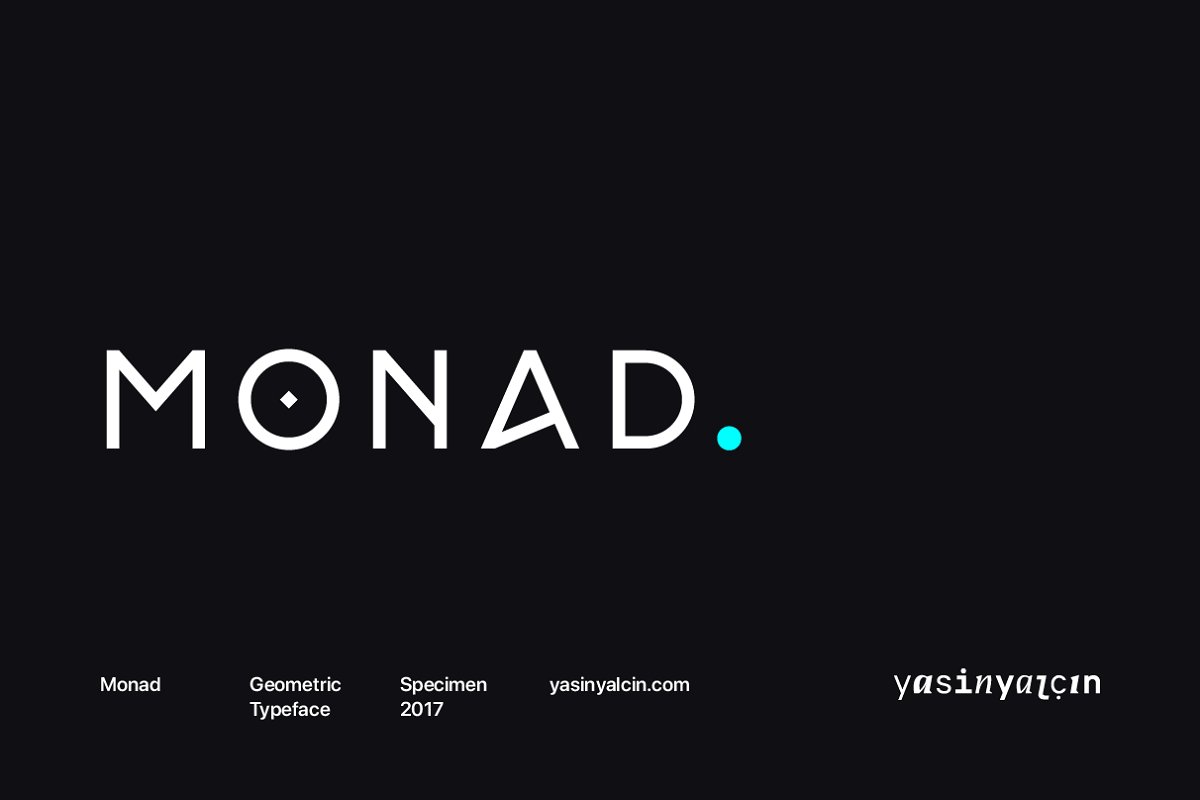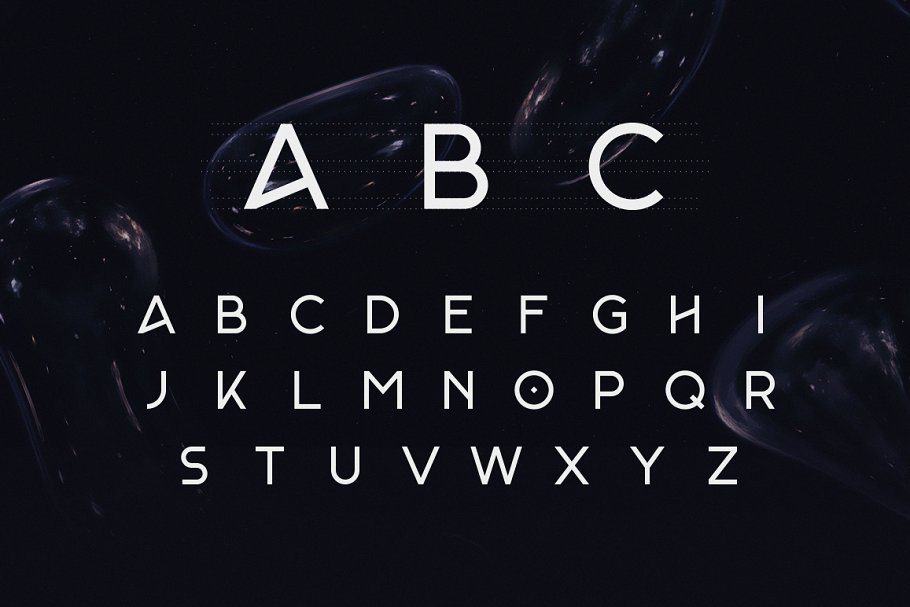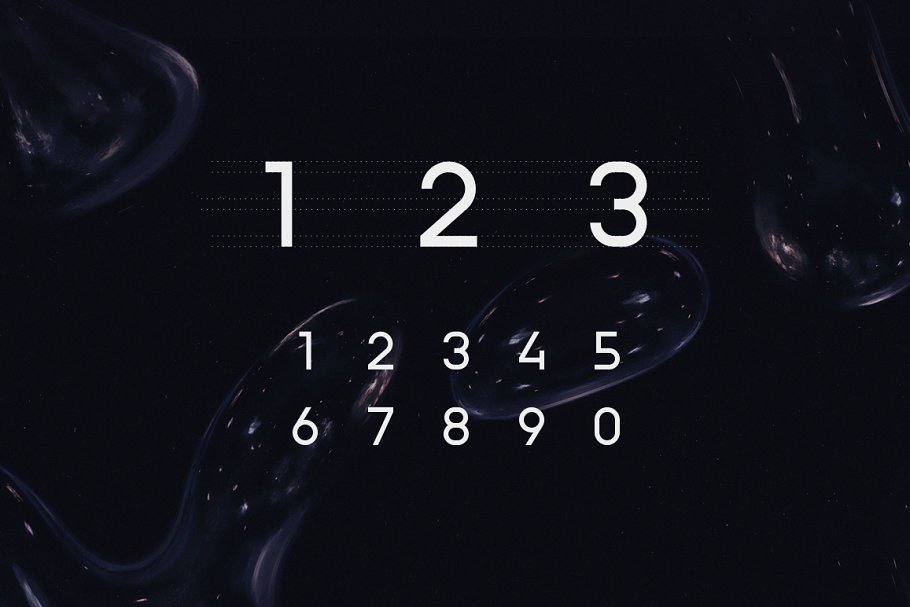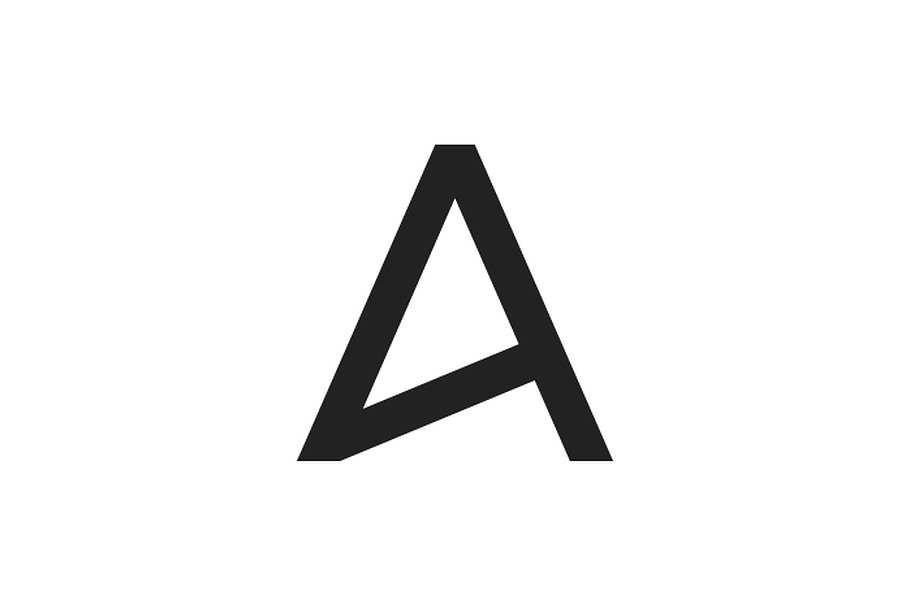
About the Monad Typeface Font
Monad is a minimal, modern, geometrical and elegant typeface, It is modern yet stylish which is great for display purpose such as logotype, poster, product packaging and headline as well, It features uppercase letters, numbers and punctuation, To browse all the uppercase letters: https://goo, gl/Q7We4xIf you need to test out a word, just type it into the box below